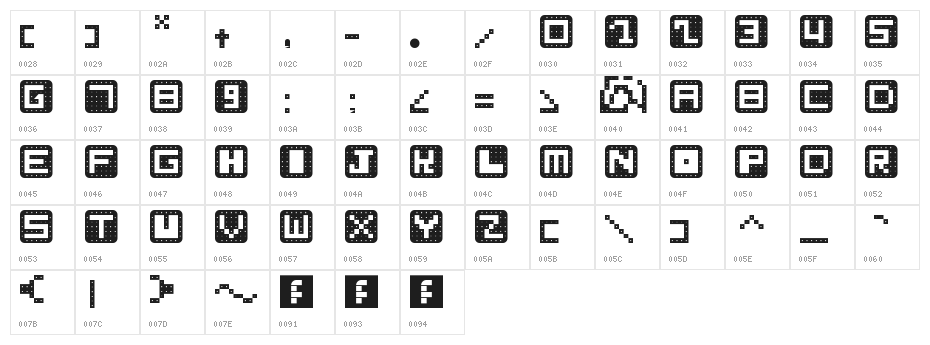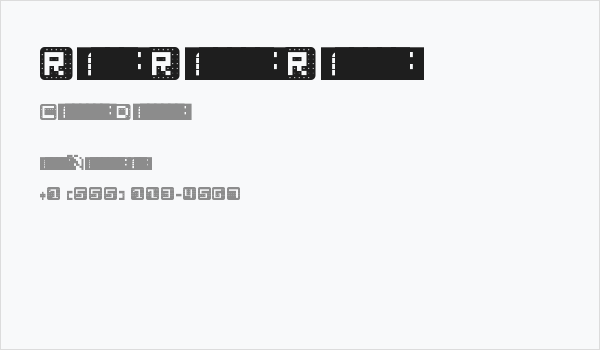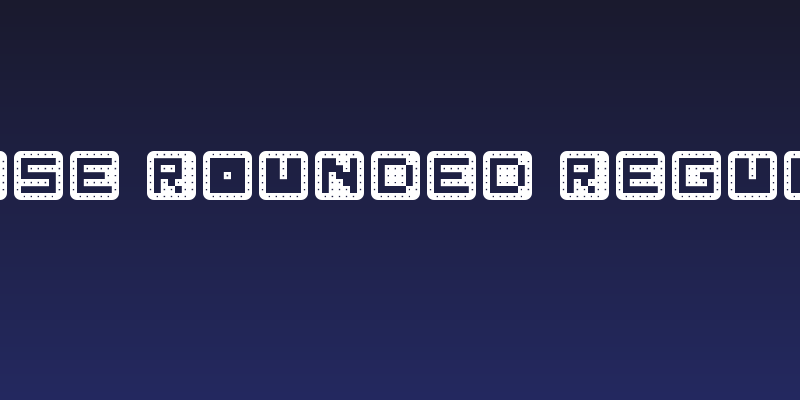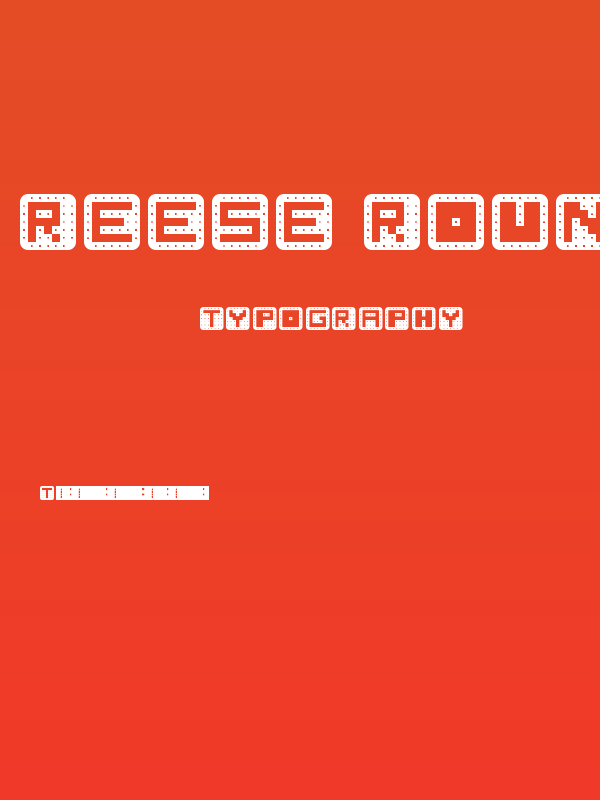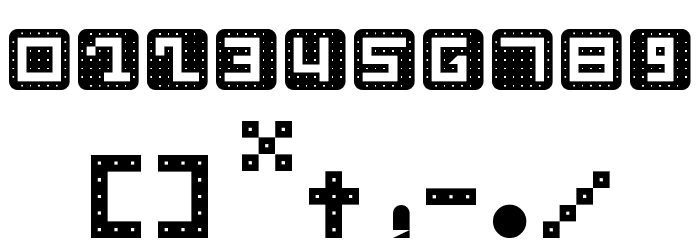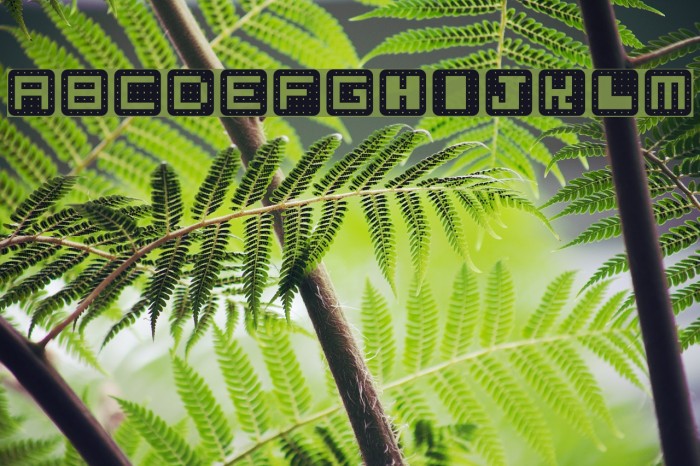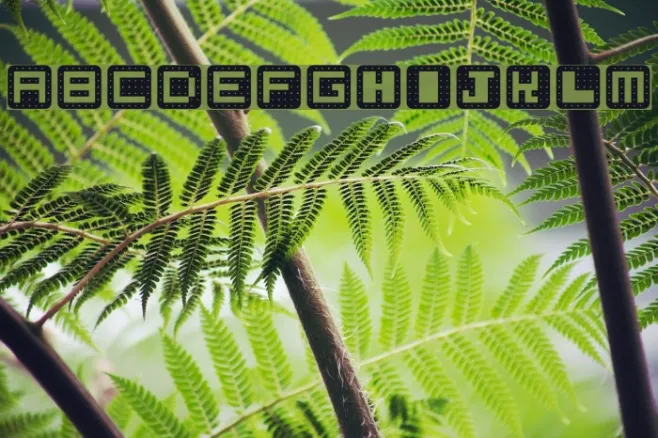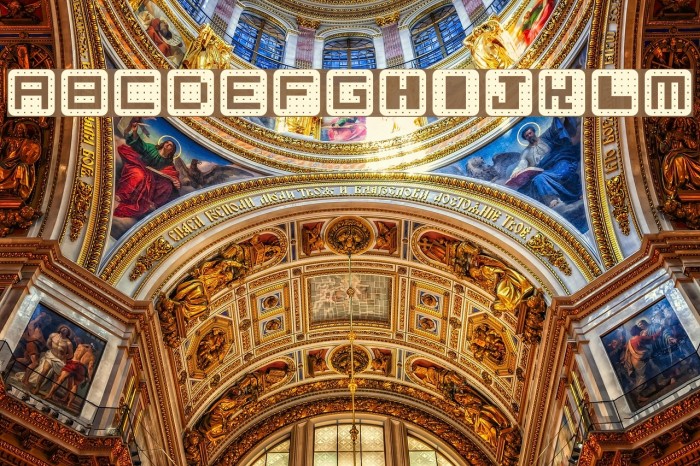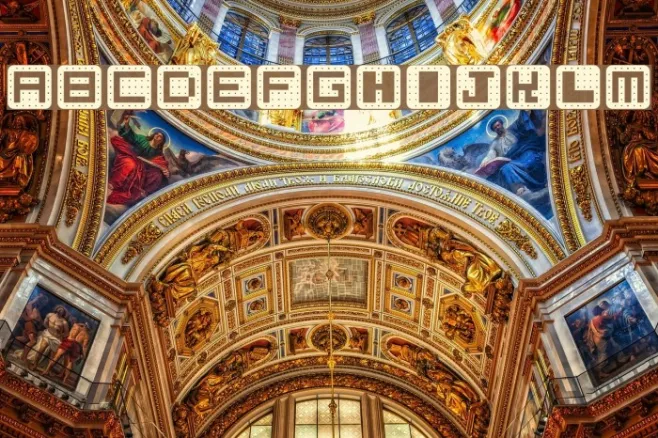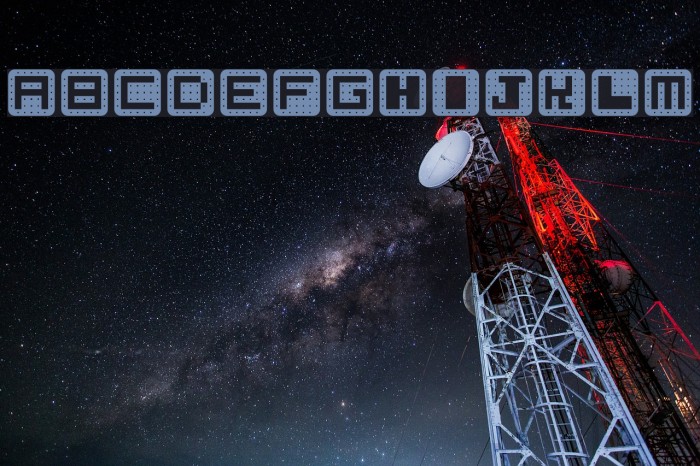
Reese Rounded Regular Font
Reese Rounded Regular Description
This font features a unique design with rounded, blocky characters that are filled with a pattern of small dots. Each letter and number is enclosed in a square shape, giving it a distinct, playful appearance. The consistent use of dots within the characters creates a textured look, making it stand out as a decorative typeface. The font maintains a uniform thickness throughout, with no variation in stroke width, contributing to its bold and modern aesthetic. The characters are evenly spaced, ensuring readability while maintaining its decorative style.
| Proposed Projects | Ideal for creative projects such as posters, children's books, or playful branding materials. |